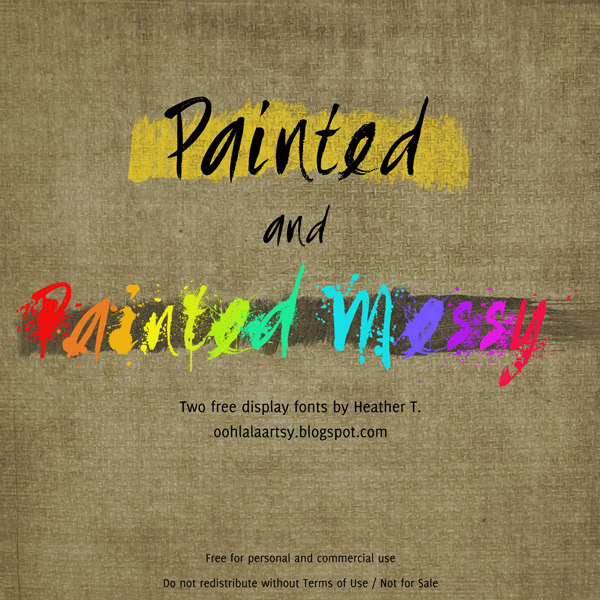
Painted Messy by Heather Taylor is a free brush and trash-style script with frantic, uneven capitals and sharply changing stroke widths. Ink spatters, dry gaps, drips, and stray hairlines make the lettering look forceful and genuinely unruly.
The splashed texture can merge with concert photography or rough collage, turning a title into part of the image rather than a clean overlay. It fits punk posters and album artwork. Skate merchandise and horror event graphics also suit its scraped, volatile marks and aggressive movement.